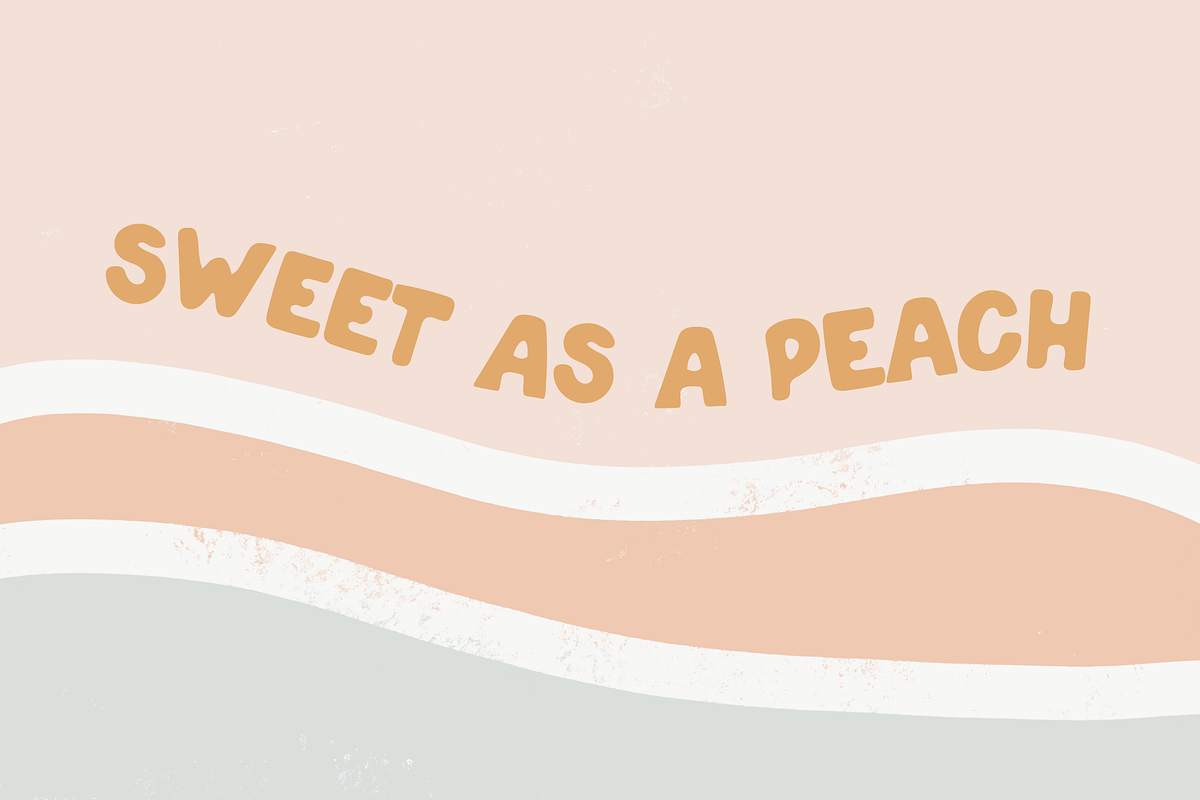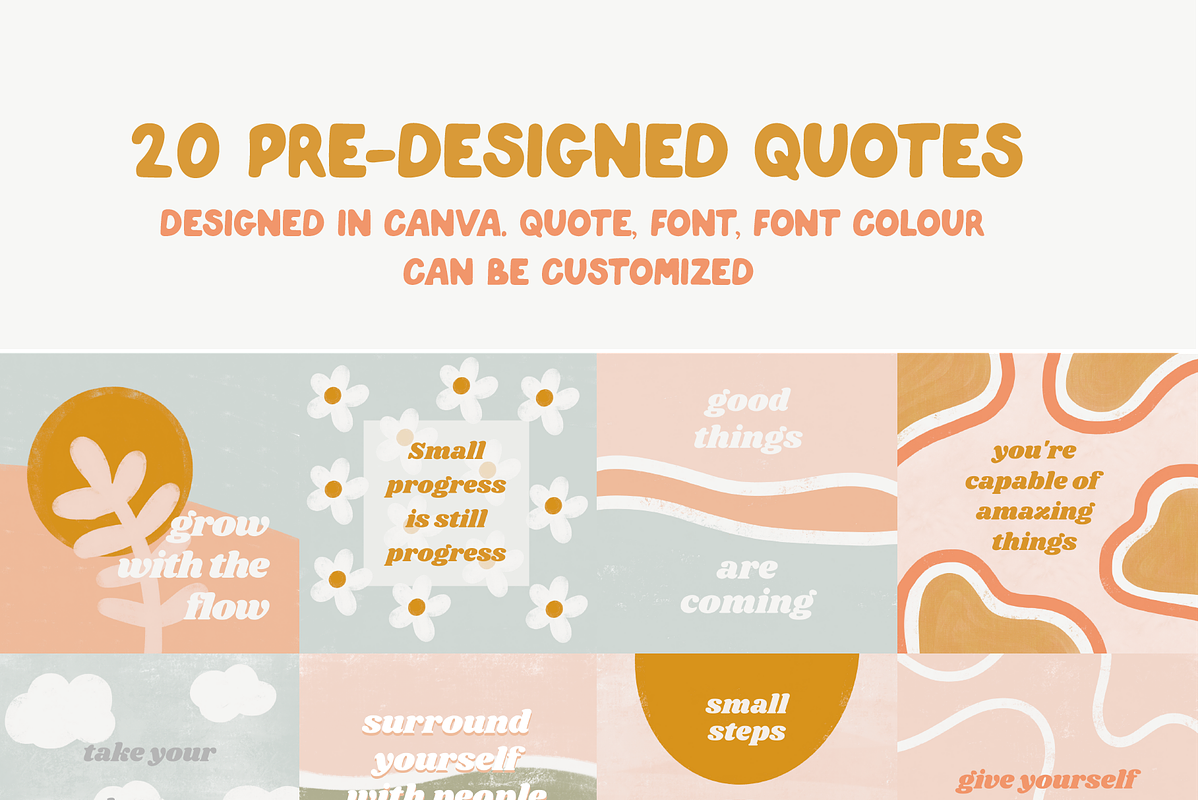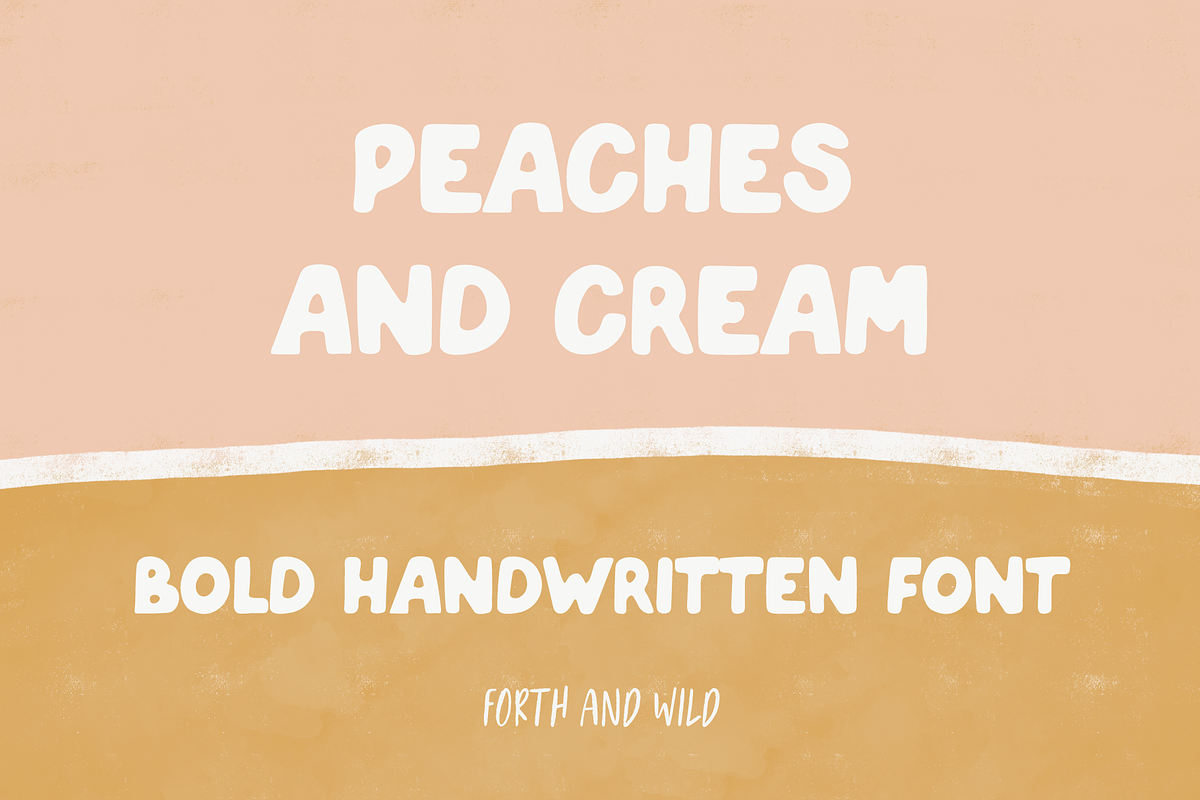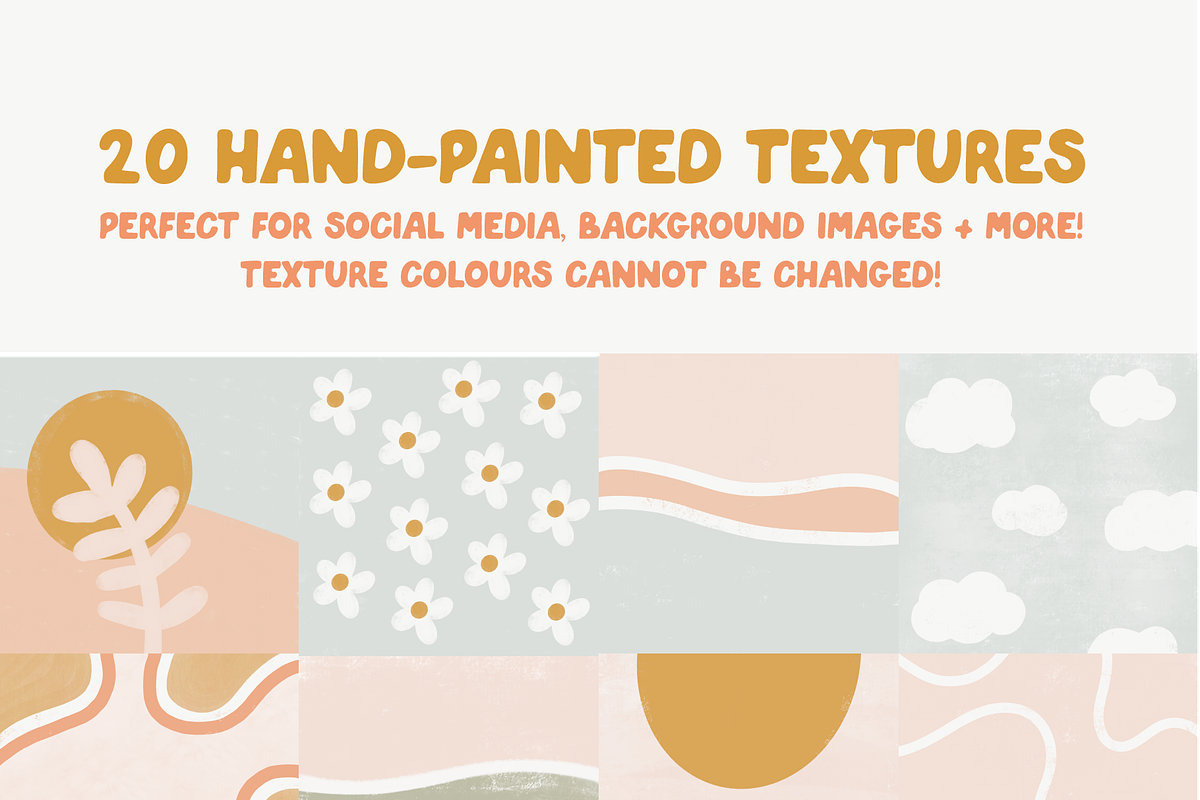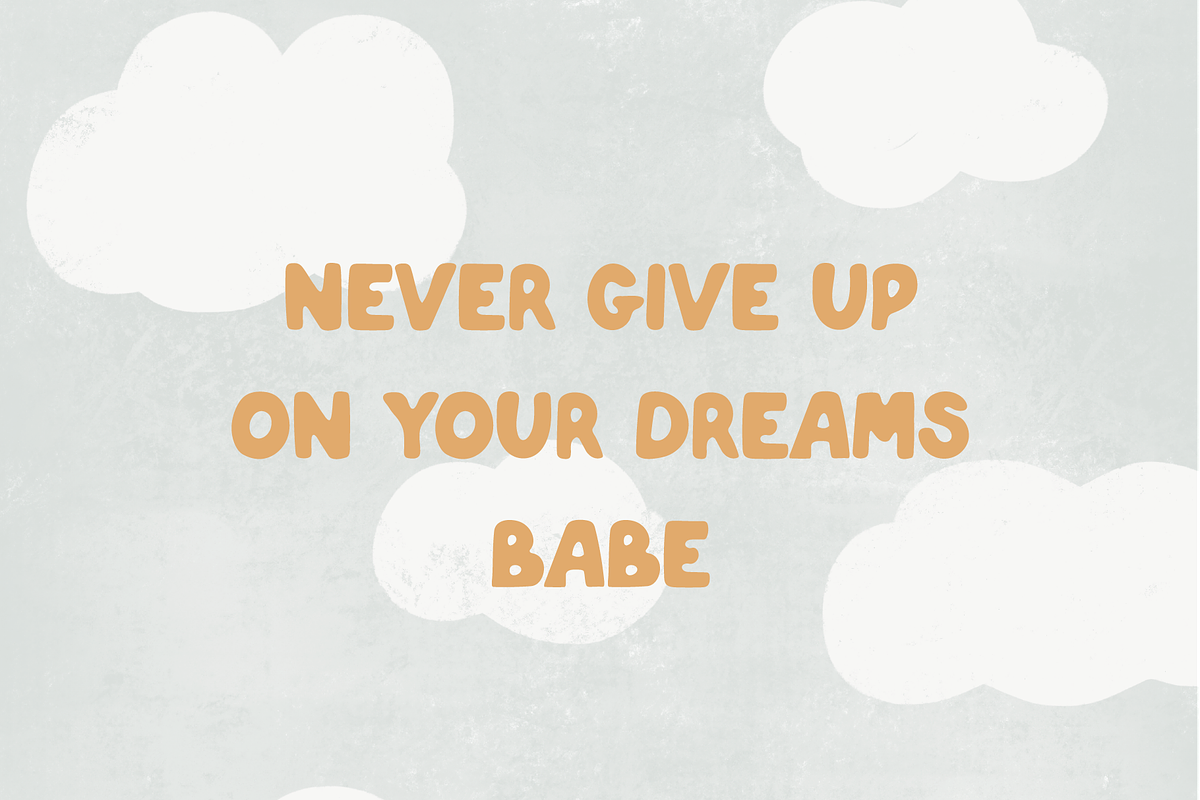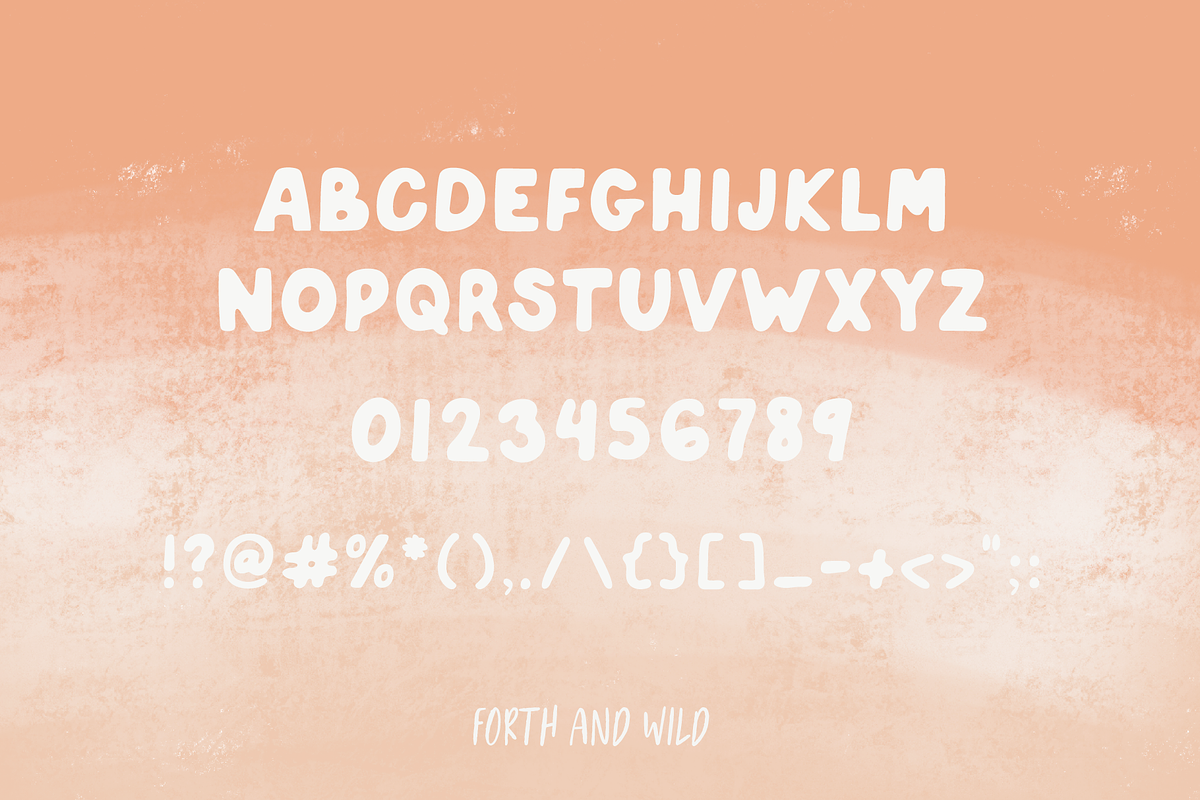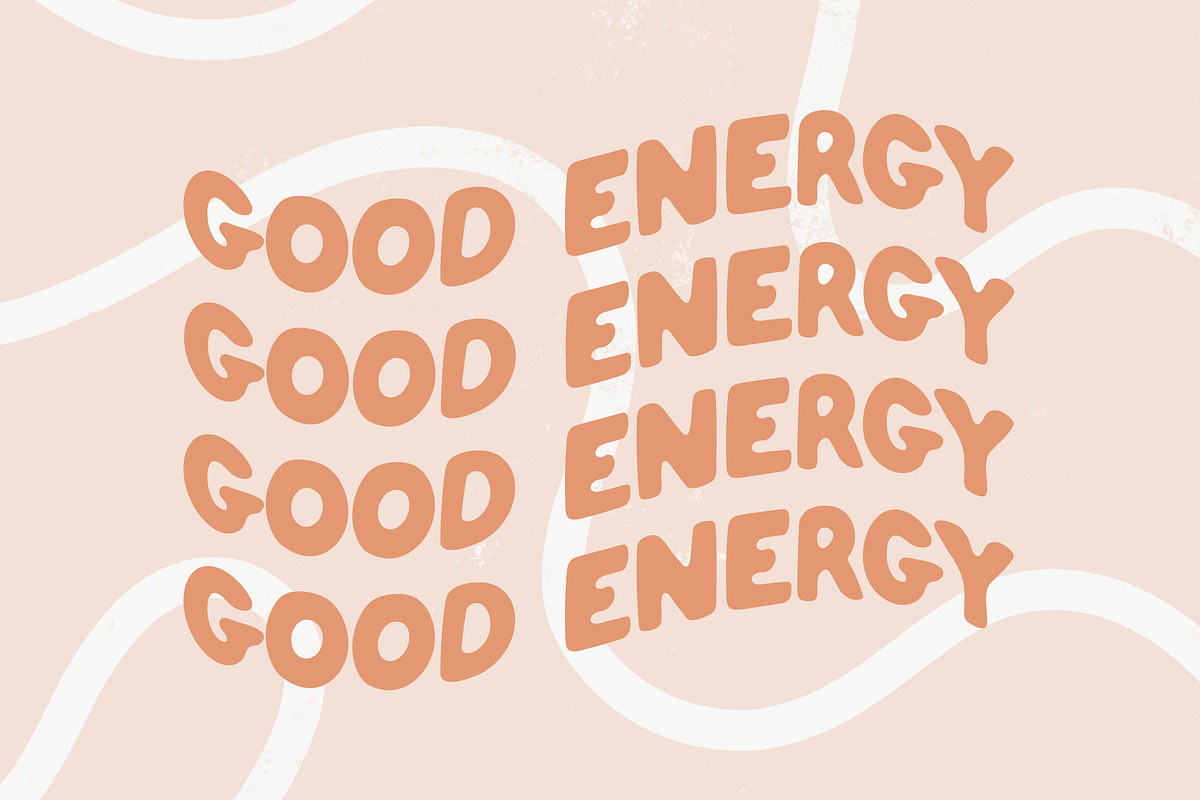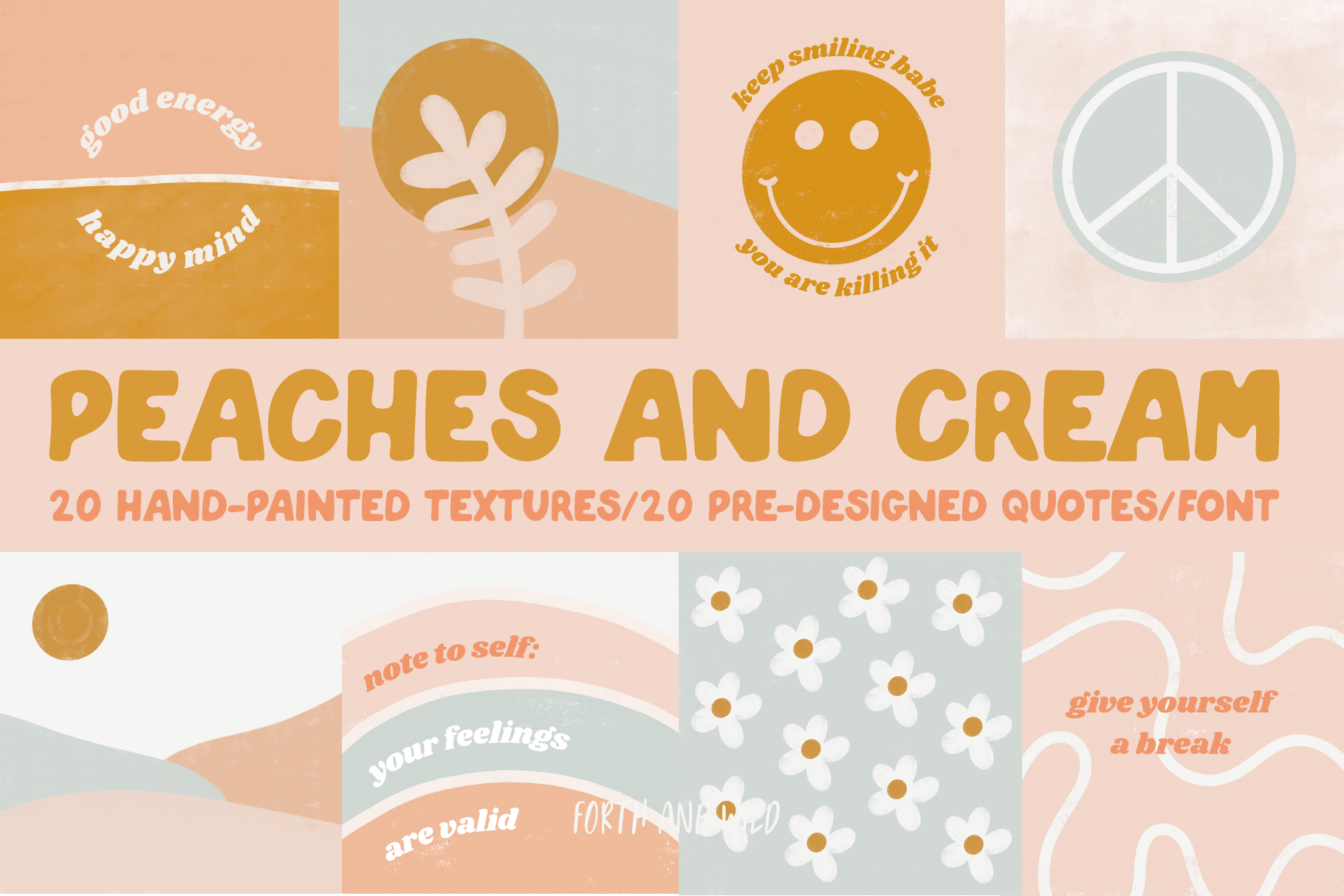
Canva Social Media Templates + Font
Peaches and Cream Instagram Quote Bundle is a fun retro and boho-inspired design that was made for Canva use only.
Peaches and Cream Instagram quote templates come with 20 easy-to-edit Instagram templates, 20 hand-painted textures, and a fun bold handwritten font. Update your Instagram feed with these stylish templates for Canva. These templates are the perfect way to add a boho-inspired look to your Instagram feed.
Since the textures were hand-painted you can not change the colours.